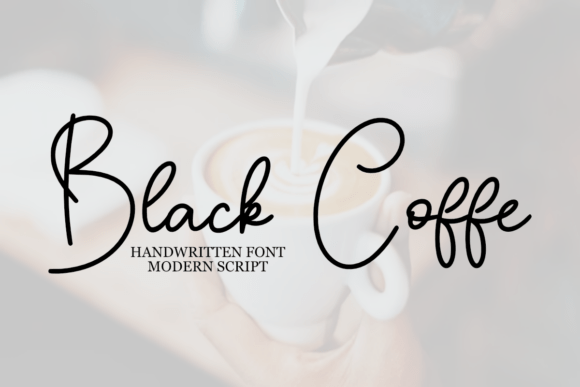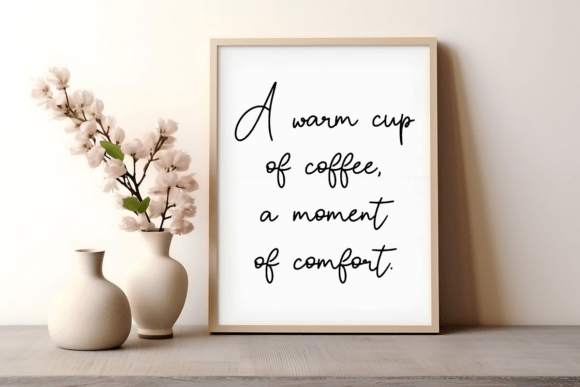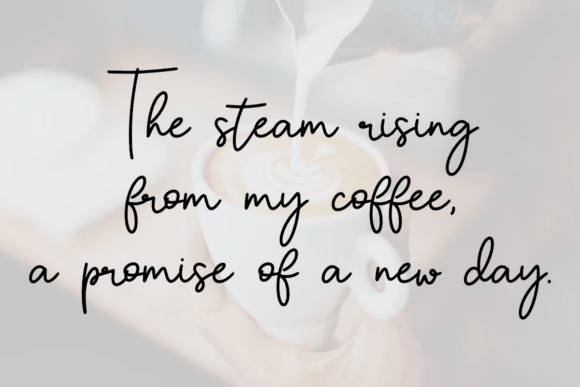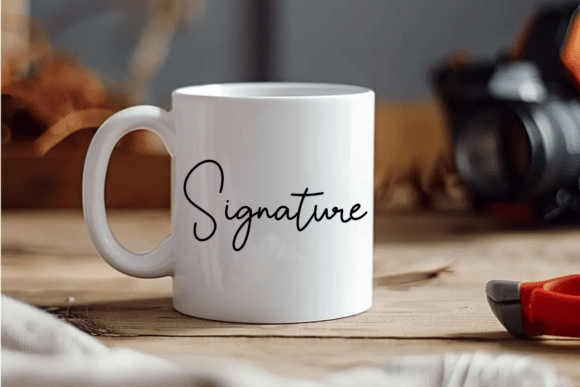
Black Coffe Font: Elegant Handwritten Script for Modern Branding
About the Black Coffe Font
Introducing the Black Coffe Font, a beautifully crafted typeface designed to elevate your creative projects. Bring a touch of modern elegance to your designs with Black Coffe, a handwritten script font that blends fluid strokes and natural charm. Its sleek, flowing lines make it perfect for coffee brands, lifestyle blogs, feminine logos, and chic stationery.
Black Coffe Font Usage Examples
Black Coffe Font Example